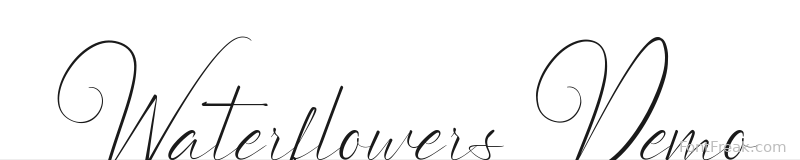
Waterflowers Demo
The Waterflowers Demo font by Noah Type is an exquisite example of a script typeface that embodies elegance and creativity. This font showcases a flowing, handwritten style, characterized by its delicate curves and flourishes. The stroke weight varies gracefully, adding a sense of organic movement, while the high contrast between thick and thin lines enhances its visual appeal. Spacing is thoughtfully designed to maintain readability, even in longer texts, making it suitable for a variety of applications.
Best suited for wedding invitations, Waterflowers Demo can also elevate the aesthetics of greeting cards, personalized stationery, and event branding. Its artistic flair makes it an ideal choice for restaurant menus, where it can convey a sense of warmth and hospitality. Additionally, graphic designers will find it useful for creating striking posters or social media graphics that need a touch of sophistication. Content creators looking to enhance their projects with a unique typography style will also benefit from this font’s charm.
Targeting graphic designers, small business owners, and content creators, Waterflowers Demo is versatile enough to appeal to a broad audience. It provides a fresh and inviting alternative to standard fonts, ensuring that any project stands out with its artistic flair.
What sets the Waterflowers Demo font apart is its ability to blend modern aesthetics with a classic touch, making it a perfect choice for creative endeavors. The combination of elegance and playfulness invites users to explore their creativity, offering a unique voice to their designs. For those looking to enhance their projects, the Waterflowers Demo font free download is an opportunity not to be missed.